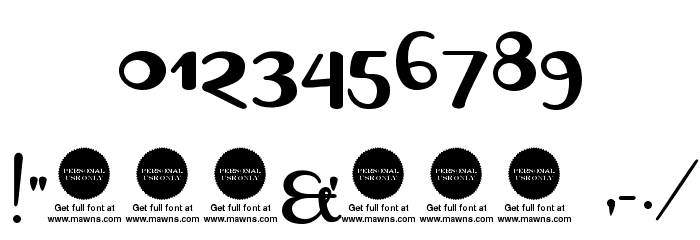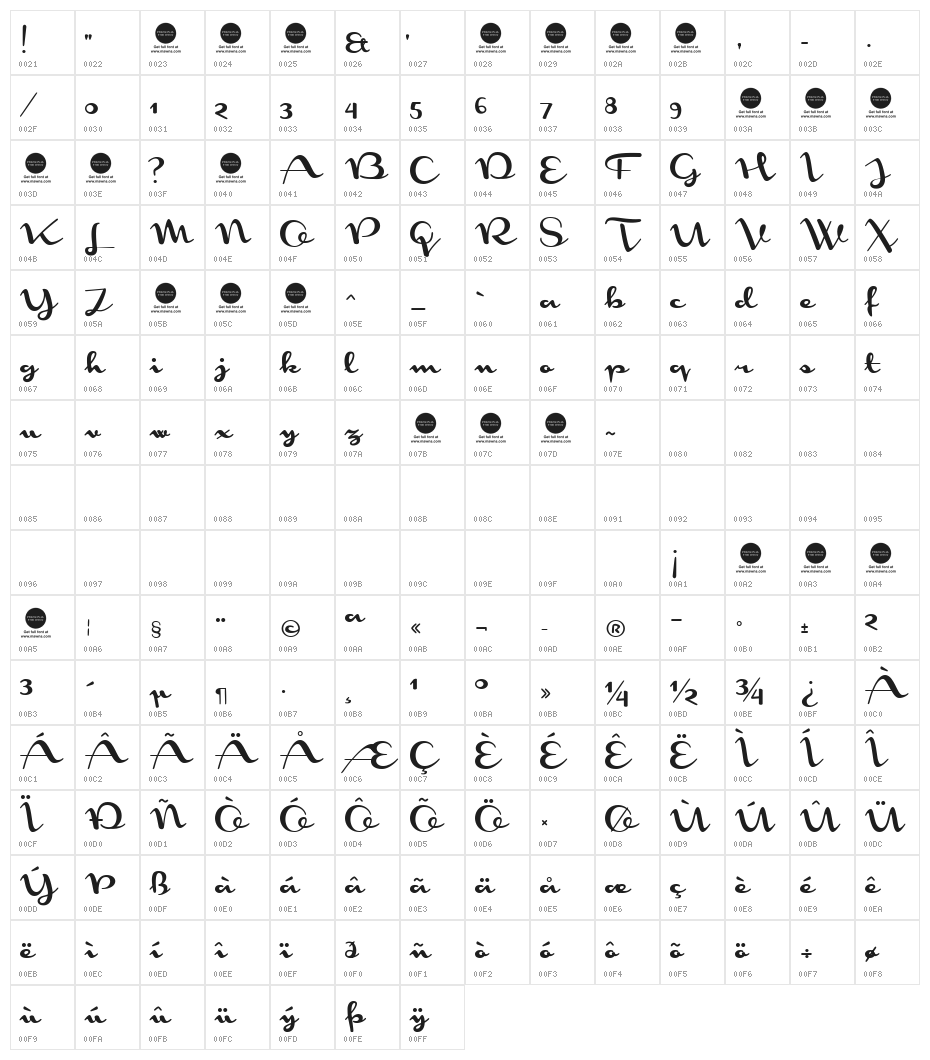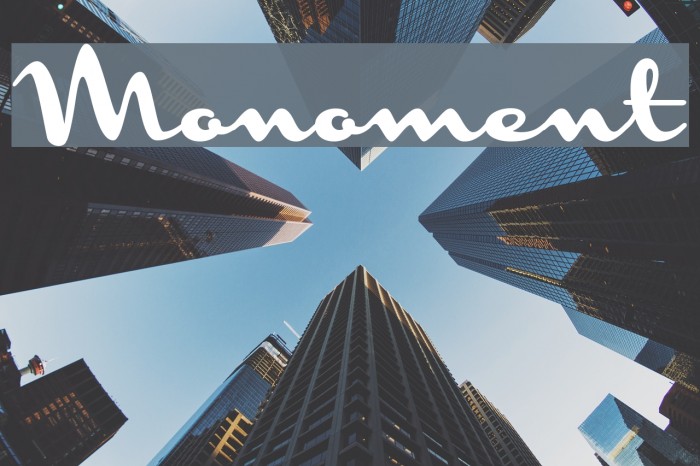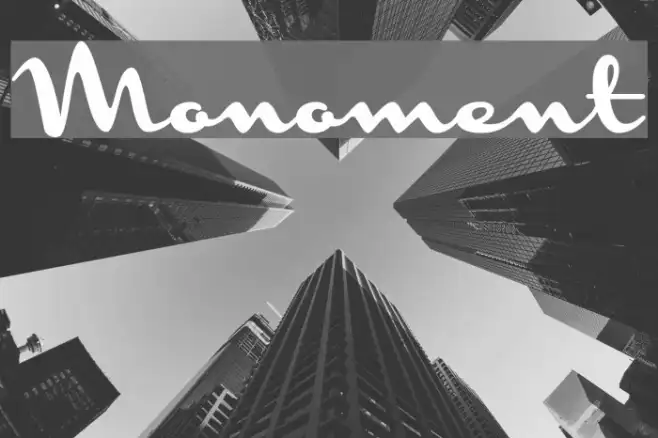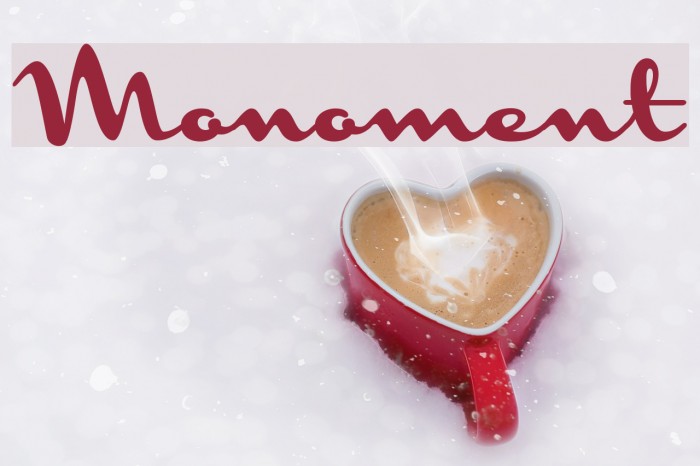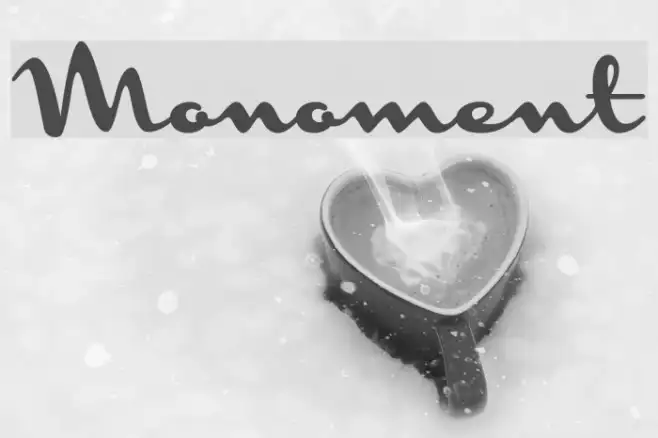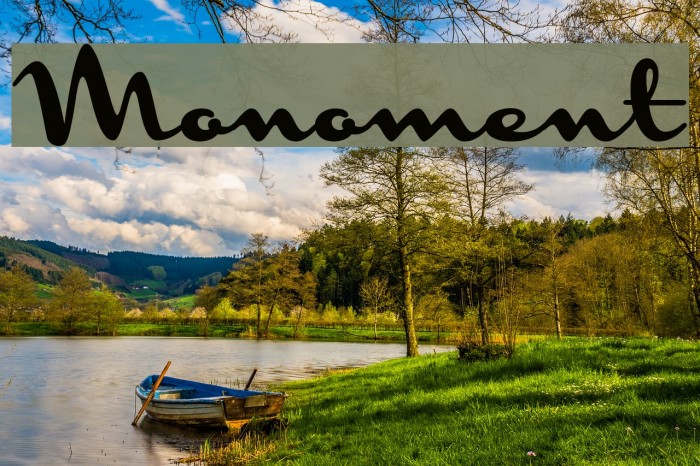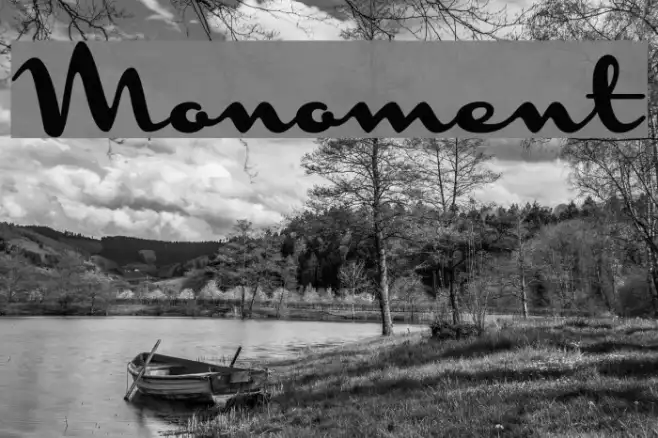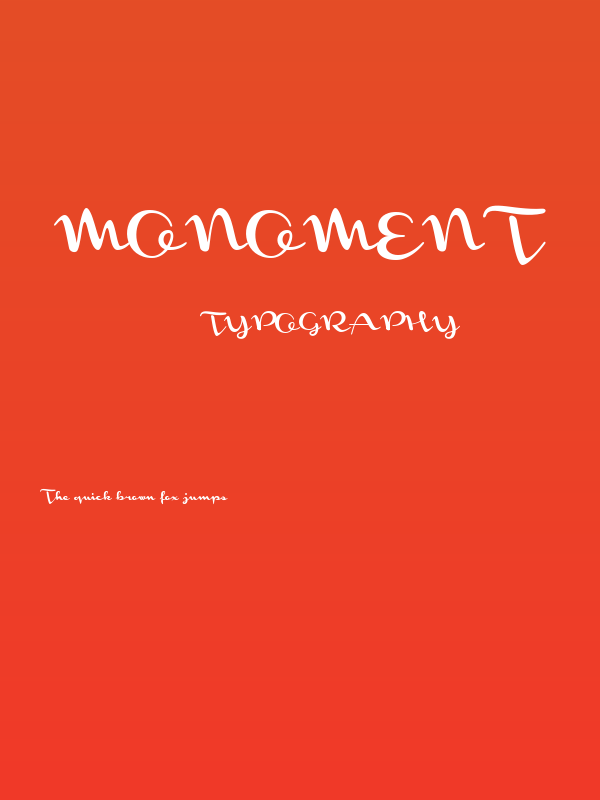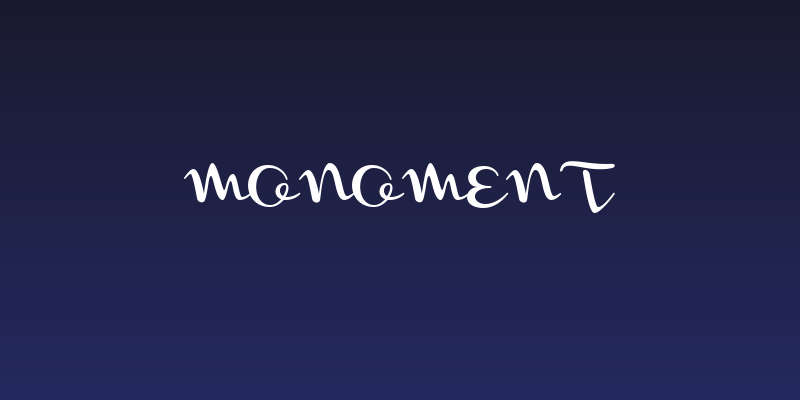
Monoment Font
Monoment Description
This font features a flowing, cursive style that combines elegance with a playful touch. The uppercase letters have a distinctive flair, with some characters incorporating unique loops and swirls that add to its decorative appeal. The lowercase letters maintain a consistent flow, making it suitable for creating a cohesive and visually appealing text. The numerals are bold and slightly whimsical, complementing the overall style. Special characters are creatively designed, enhancing the font's versatility for various design projects.